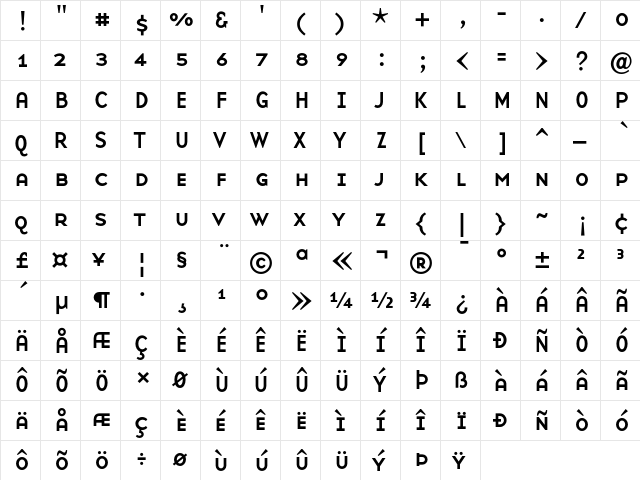
BaseNine Medium
| Foundry | C) Emigre Graphics; designed by Zuzana Liko |
Design Context for BaseNine Typeface
BaseNine is a composed and adaptable typeface that performs quietly and consistently across a wide range of design contexts.